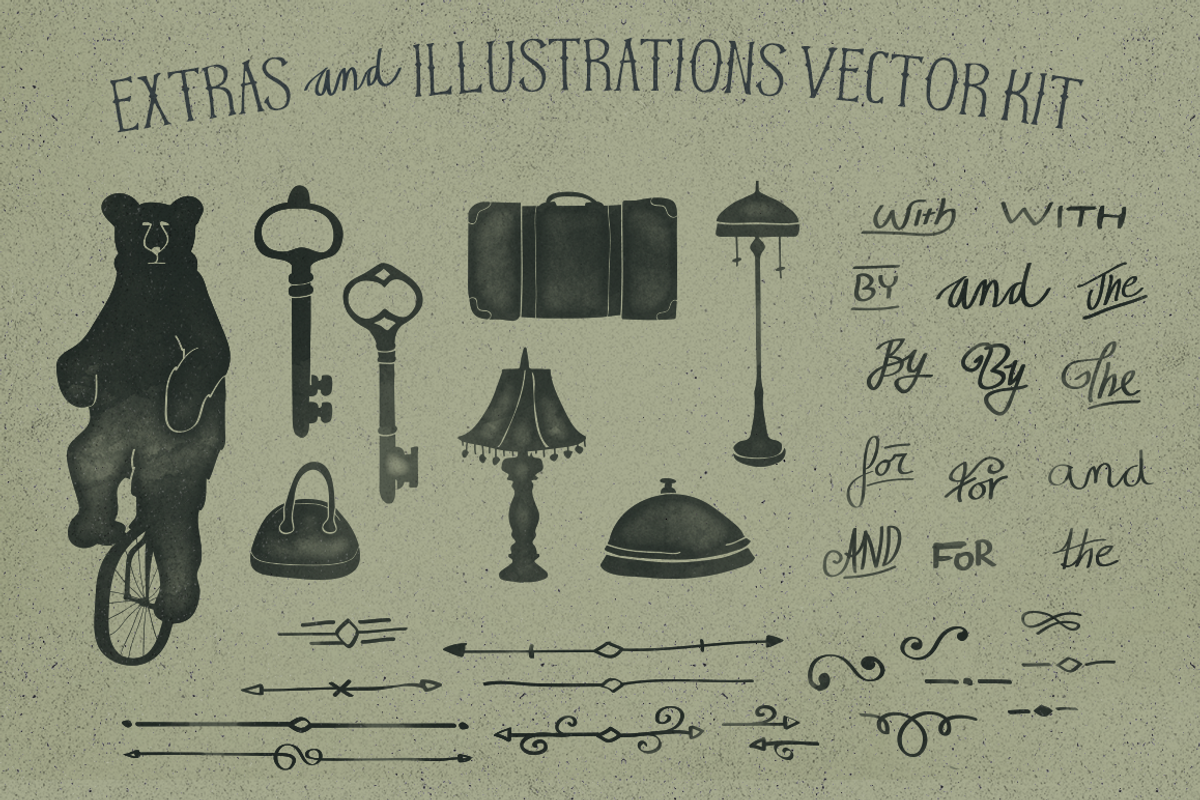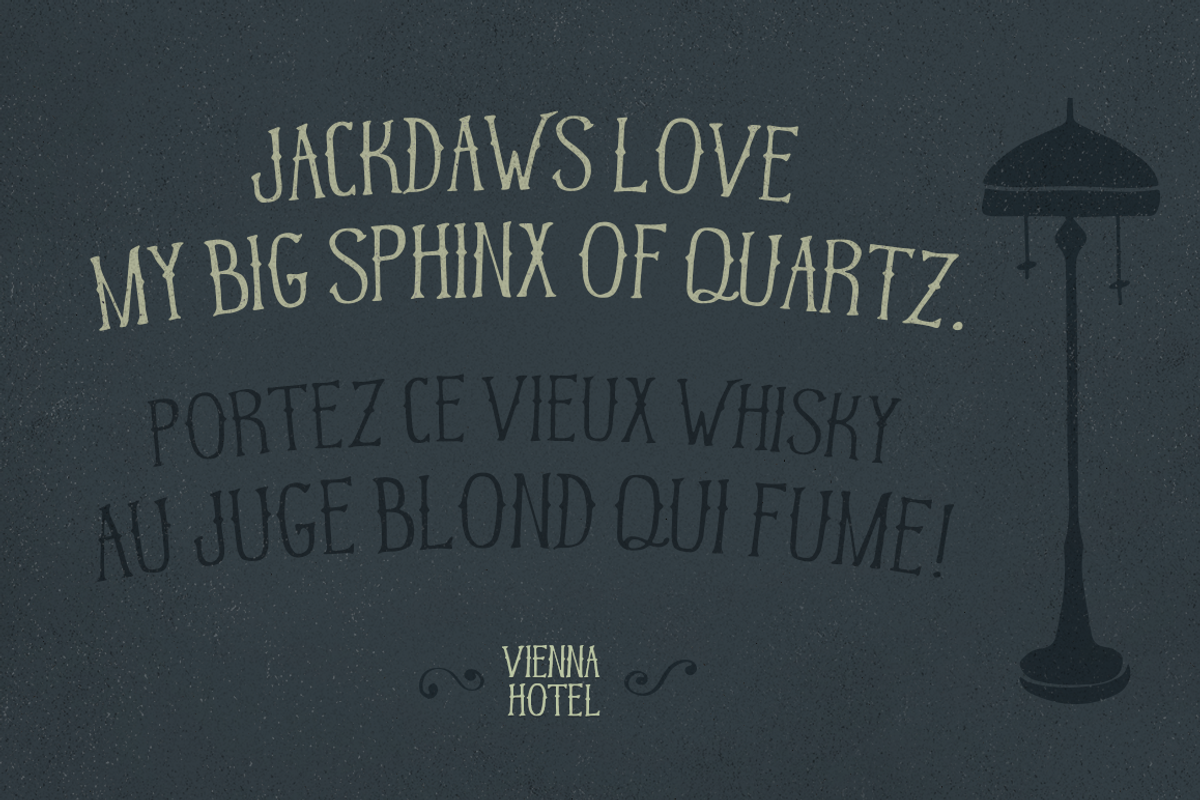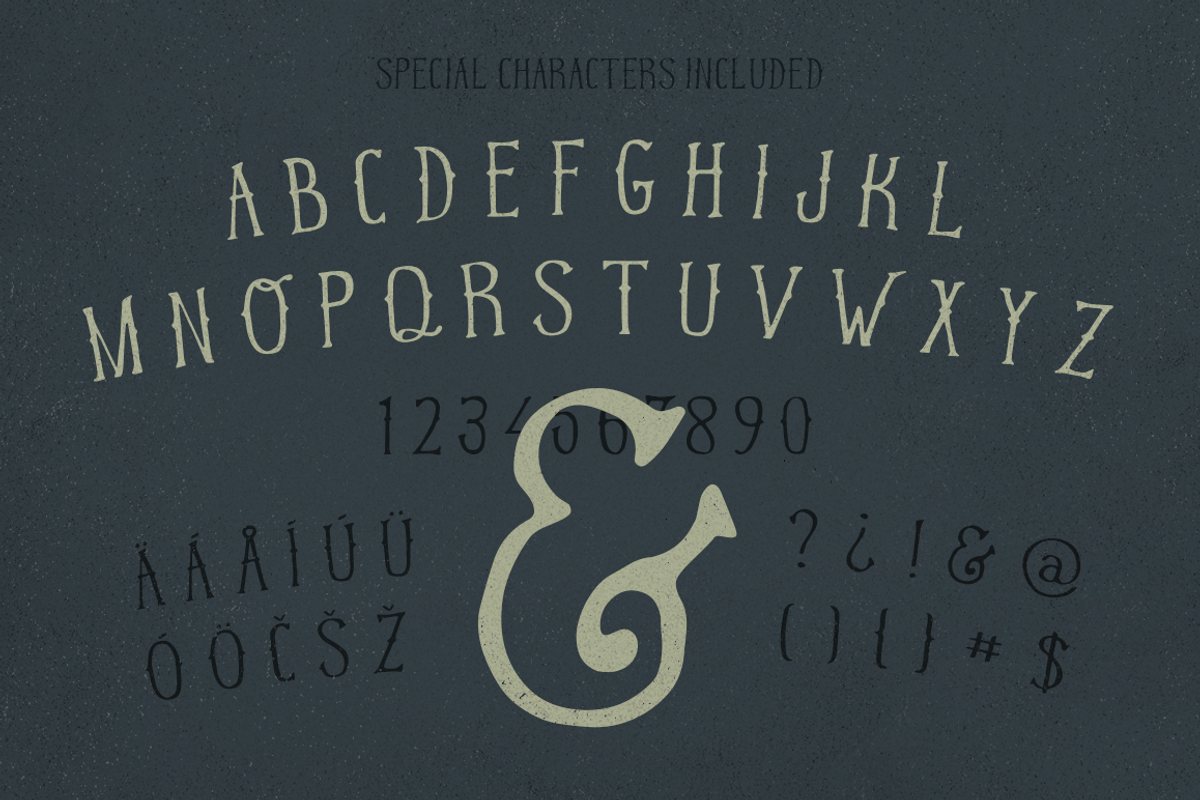
Vienna Hotel - Handmade Typeface
Vienna Hotel - Handmade Typeface by Petr Knoll is a font selected for branding, posters, packaging, typography.
- Vienna Hotel Condensed Regular
Vienna Hotel - Handmade Typeface by Petr Knoll fits naturally into Branding, posters, packaging, typography.